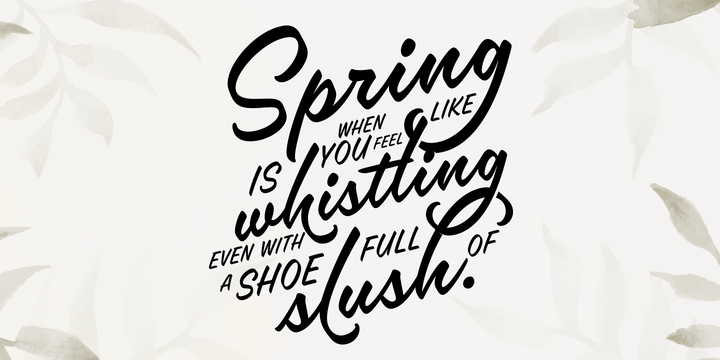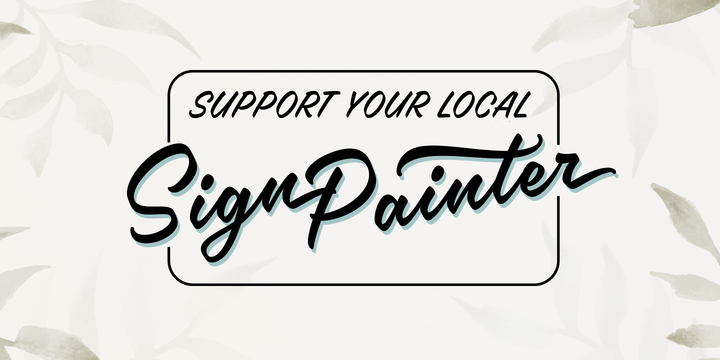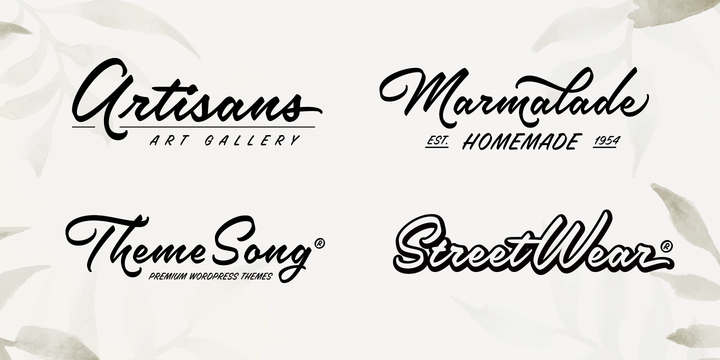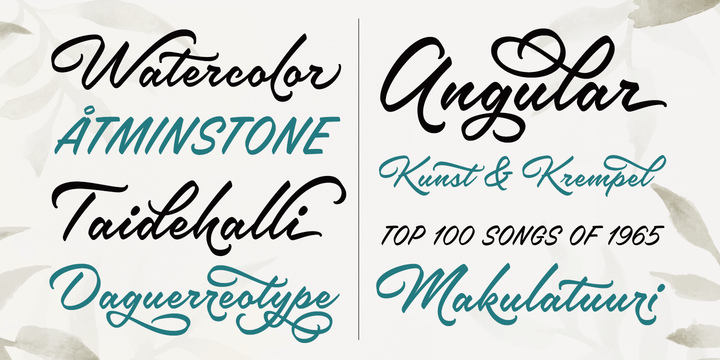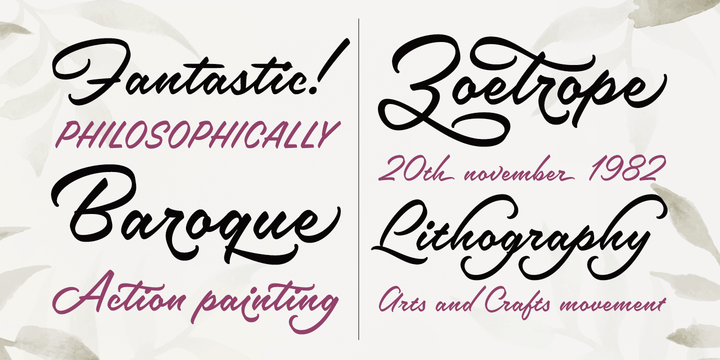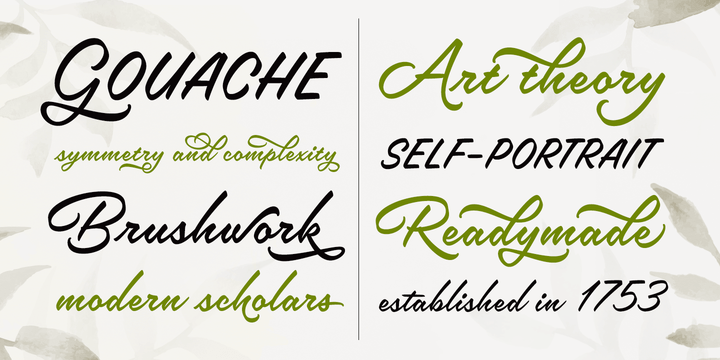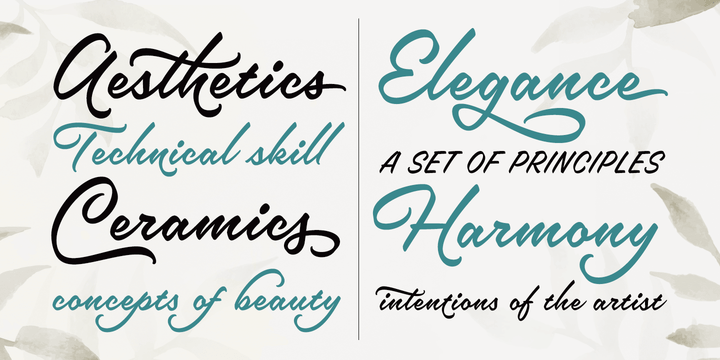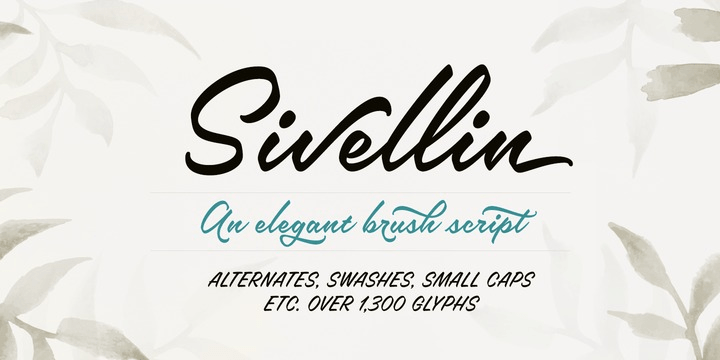
About Sivellin
Sivellin is an elegant brush script with a lots of alternates, swashes and small caps. All in all it has over 1,300 glyphs. Sivellin has round and soft letterforms, low x-height and quite a generous spacing to get that elegant and very legible result.…